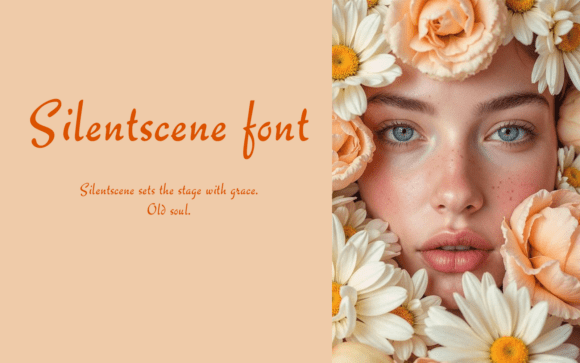
Introduction to Silentscene Font
Have you ever found yourself lost in the nostalgia of a classic film, the flickering lights of a vintage theatre dancing across your face? The magic of the silver screen is a timeless experience that transcends words. And now, you can bring that same enchantment to your design projects with the Silentscene Font.
As a designer, you’re always on the lookout for that special something to elevate your creative project. And when it comes to evoking the essence of a bygone era, the Silentscene Font is the perfect design resource. With its elegant, art deco-inspired letters, this font is sure to transport your audience to a world of sophistication and glamour. Plus, with a transparent background, you can easily incorporate it into your designs without any hassle.
Key Features of Silentscene Font
- Unique and stylish design, ideal for creative projects that require a touch of elegance
- High-quality font with transparent background, allowing for seamless integration into various design elements
- Perfect for use in graphic design, digital art, and other creative pursuits where a sophisticated font is needed
- Includes a range of characters and glyphs, making it suitable for a variety of languages and design applications
- Designed with a focus on legibility and aesthetics, ensuring it is both functional and visually appealing
Honest Review: Silentscene Font
As a designer, I’m always on the lookout for high-quality fonts to enhance my creative projects. Recently, I stumbled upon the free download of the Silentscene Font, and I’m excited to share my honest review with you.
- ✨ Beautiful, elegant design that’s perfect for creative projects
- ✨ Includes a transparent background option, making it easy to use in various design scenarios
- ✨ High-quality font that’s crisp and clear, even at large sizes
- ⚠️ Limited character set, which may not be suitable for projects that require extensive typing
- ⚠️ Not suitable for use in large-scale typography, as it may become pixelated
Overall, I’m impressed with the Silentscene Font, but it’s essential to consider its limitations when deciding whether to use it in your design project. As a design resource, it’s a great addition to any creative toolbox, and I’d definitely recommend it for smaller-scale typography needs.
Tips for Getting the Most Out of Silentscene Font
For the best results, use Silentscene Font in conjunction with other design resources, such as graphics and images. Experiment with different font sizes, colors, and styles to achieve a unique look.
Silentscene Font is ideal for creative projects that require a modern and sleek design. It’s perfect for branding, advertising, and social media graphics, as well as presentations and reports.